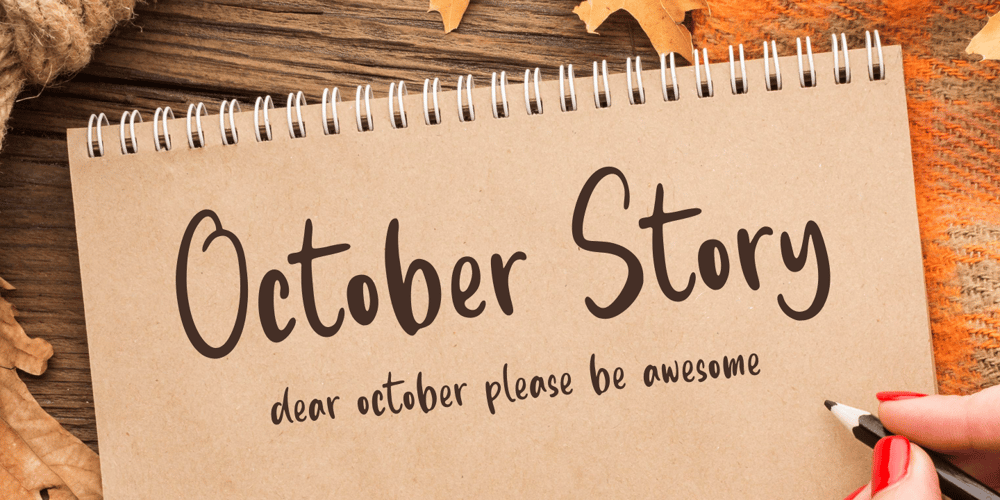
October Story Font Family was designed by Muhamad Yusron Billah and published by Sronstudio. October Story contains 1 styles and family package options. October Story is a fun Handwritten Font, this font Is perfect for product packaging, product designs, label, photography, watermark, special events, or anything.October Story comes with uppercase and lowercase letters, multilingual symbols, numerals, punctuation.